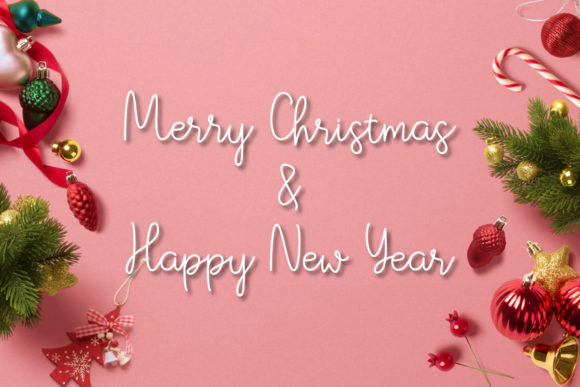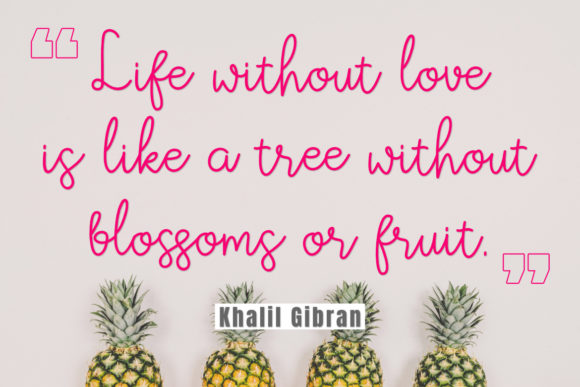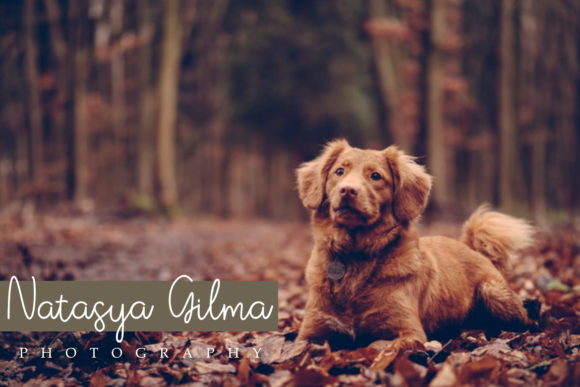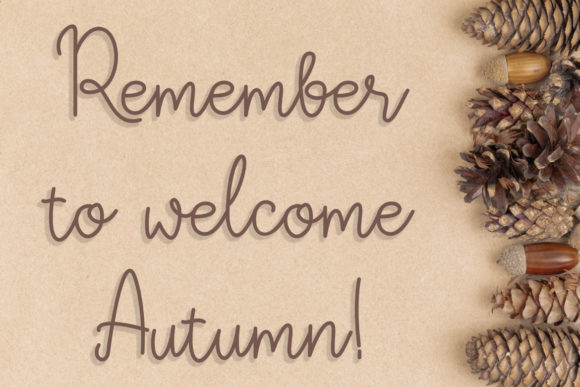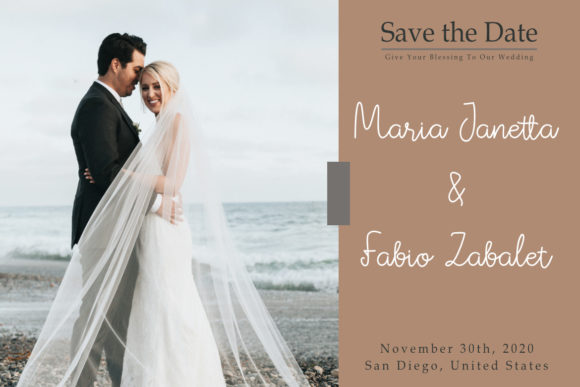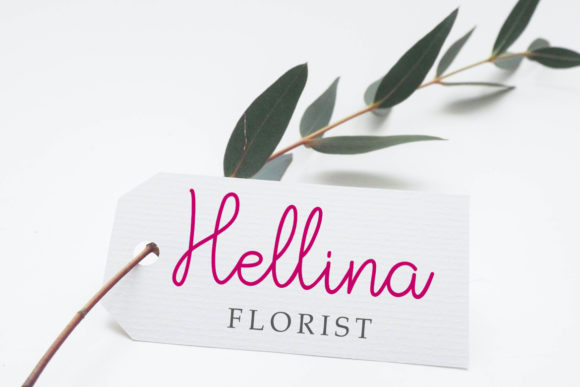
Discover the Charm of Avrilya Font: Elevate Your Design Projects with its Unique Flair
Are you tired of using the same old fonts in your design projects? Look no further than Avrilya Font, a modern, unique, and lovely script font that’s sure to make your designs stand out. With its authentic details and elegant flair, Avrilya Font is the perfect choice for designers and crafters looking to add a touch of sophistication to their work.
What Makes Avrilya Font So Special?
Avrilya Font is a one-of-a-kind script font that’s been carefully crafted to provide a fresh and modern look to any design project. Its unique and authentic details make it perfect for a wide range of applications, from branding and advertising to packaging and digital media. Whether you’re working on a logo, brochure, or social media post, Avrilya Font is sure to turn heads and leave a lasting impression.
The Benefits of Using Avrilya Font
So why choose Avrilya Font over other fonts on the market? Here are just a few benefits of using this amazing script font:
- Unique and Memorable: Avrilya Font is unlike any other font on the market. Its distinctive look and feel make it instantly recognizable, and its charm is sure to leave a lasting impression on your audience.
- Versatile: Avrilya Font is incredibly versatile, making it perfect for a wide range of design projects. Whether you’re working on a formal or informal project, Avrilya Font is sure to fit the bill.
- Elegant and Sophisticated: Avrilya Font exudes elegance and sophistication, making it perfect for high-end branding and advertising projects.
- Easy to Read: Despite its unique and ornate details, Avrilya Font is incredibly easy to read, making it perfect for body text and other applications where legibility is key.
How to Use Avrilya Font in Your Design Projects
Using Avrilya Font in your design projects is easy. Here are a few tips to get you started:
- Pair it with a Sans Serif Font: For a classic and timeless look, pair Avrilya Font with a sans serif font like Arial or Helvetica.
- Use it as a Headline Font: Avrilya Font is perfect for headlines and titles, where its unique and ornate details can really shine.
- Add it to Your Branding: If you’re looking to create a consistent brand identity, consider adding Avrilya Font to your branding materials, such as your logo, business cards, and website.
Who Can Benefit from Using Avrilya Font?
Avrilya Font is perfect for a wide range of designers and crafters, including:
- Graphic Designers: Whether you’re working on a logo, brochure, or social media post, Avrilya Font is sure to add a touch of elegance and sophistication to your design.
- Branding Experts: If you’re looking to create a consistent brand identity, Avrilya Font is a great choice for logos, business cards, and other branding materials.
- Crafters and DIY Enthusiasts: Avrilya Font is also perfect for crafters and DIY enthusiasts who want to add a personal touch to their projects, such as handmade cards, invitations, and scrapbooking.
In conclusion, Avrilya Font is a modern, unique, and lovely script font that’s sure to elevate your design projects to the next level. With its authentic details and elegant flair, Avrilya Font is the perfect choice for designers and crafters looking to add a touch of sophistication to their work. So why wait? Fall in love with Avrilya Font today and turn your design projects into true standouts!